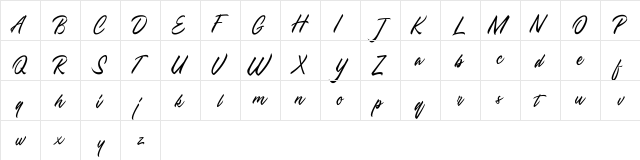
Townsquare FREE Regular
Design Context for Townsquare FREE Typeface
Townsquare FREE is a composed and adaptable typeface that performs quietly and consistently across a wide range of design contexts.
Pro Tip: Use Townsquare FREE in both headline and body roles to test its range before committing to a single application.